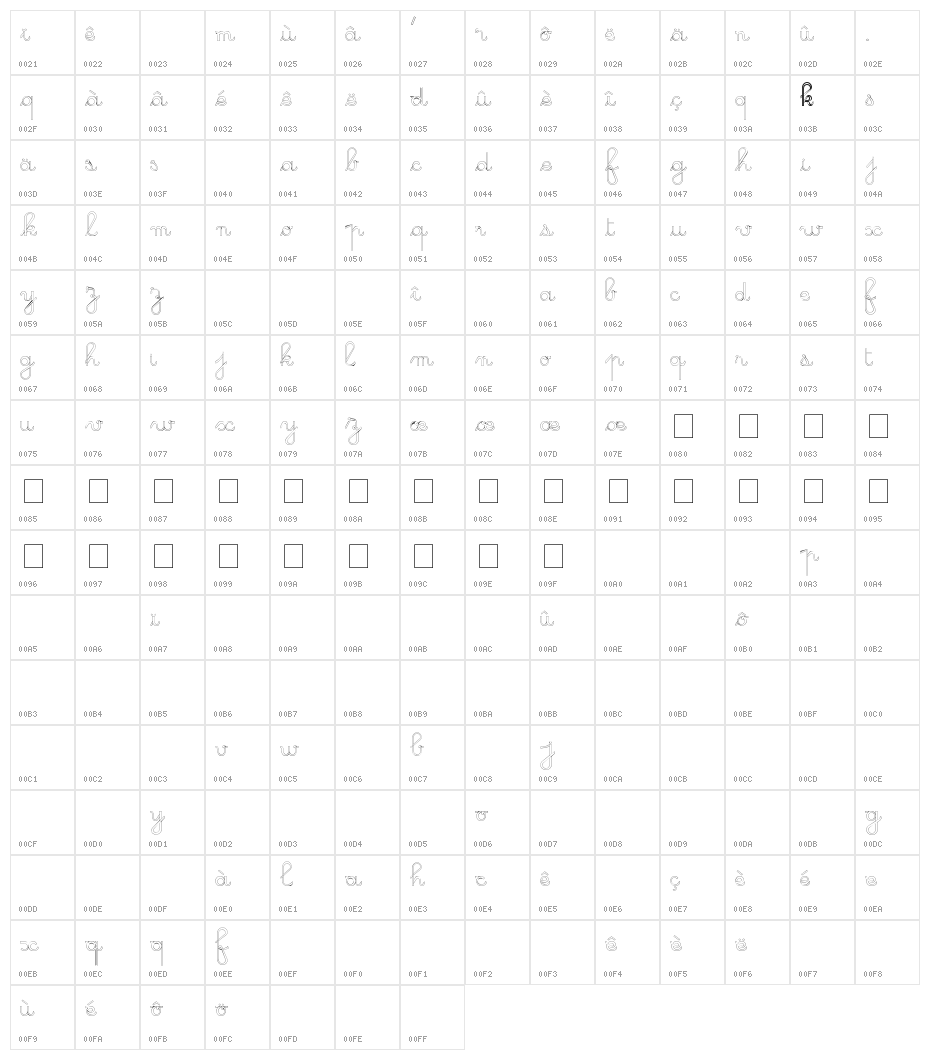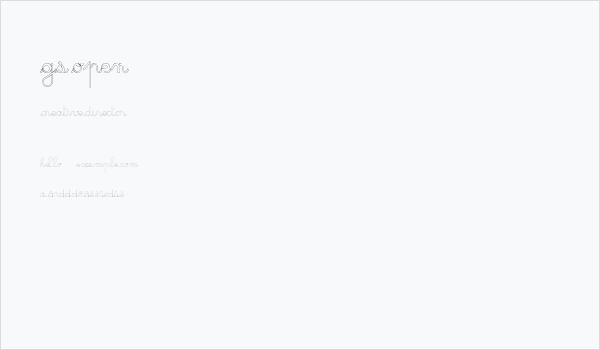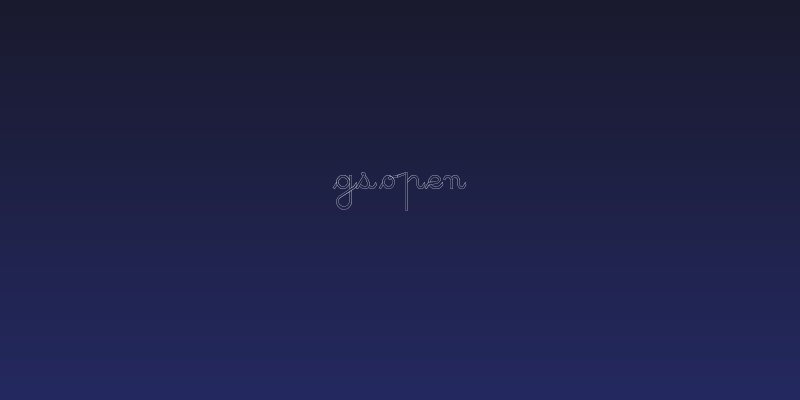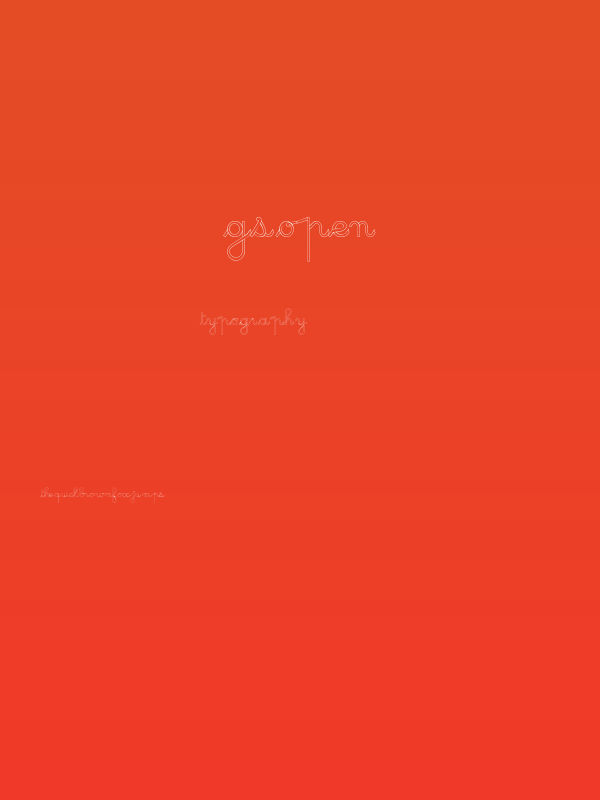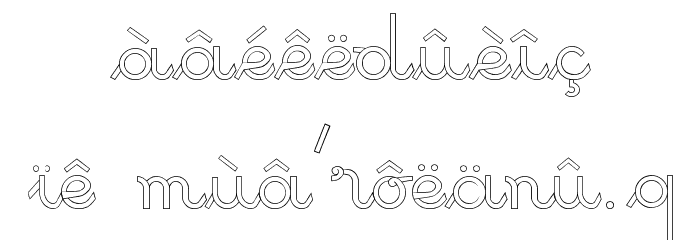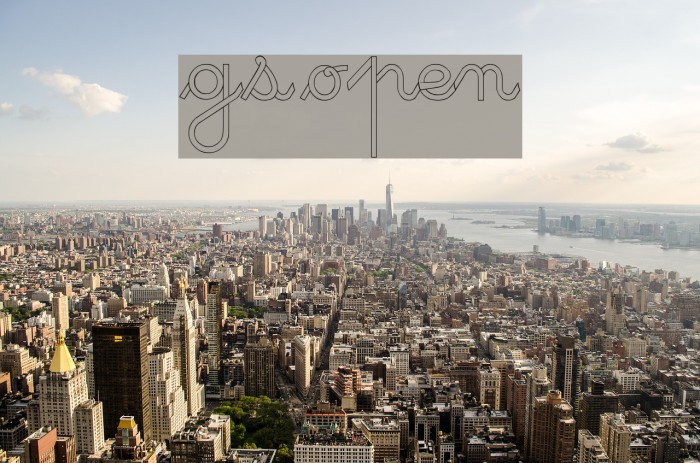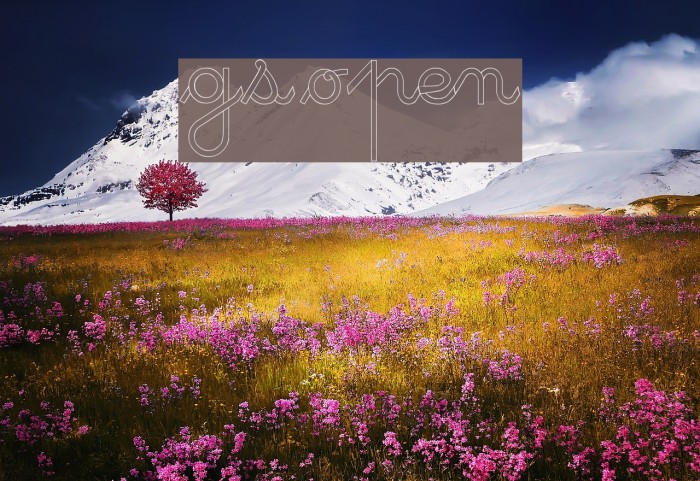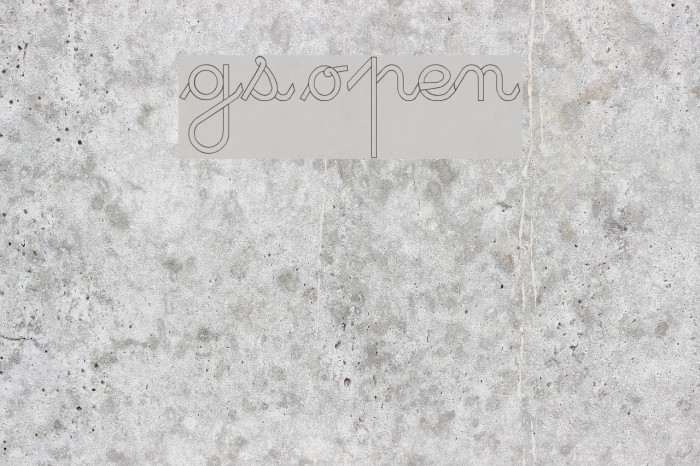
GS Open Font
GS Open Description
This font features a unique and artistic design with a continuous line style that gives it a flowing, interconnected appearance. The characters are crafted with a single, unbroken line that loops and curves gracefully, creating a sense of movement and elegance. The lowercase letters exhibit a playful yet sophisticated aesthetic, with some characters extending below the baseline, adding to the dynamic feel. The uppercase letters maintain the same fluidity, offering a cohesive look across both cases. This font includes a range of accented characters, making it versatile for various languages. The overall design is modern and creative, suitable for projects that require a distinctive and artistic touch.
| Overall Style | Modern, Artistic |
| Use Case | Logos, Invitations, Posters |
| Proposed Projects | Ideal for creative projects such as logos, invitations, posters, and branding materials that seek a unique and artistic flair. |